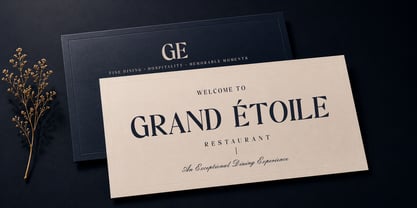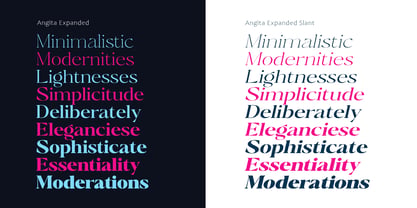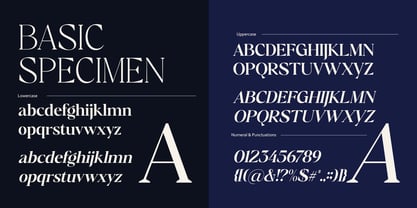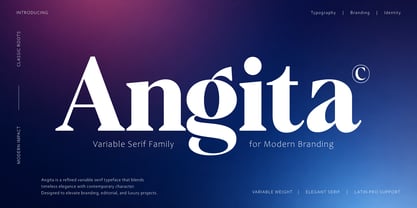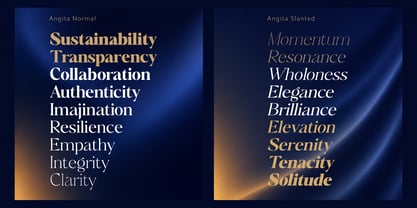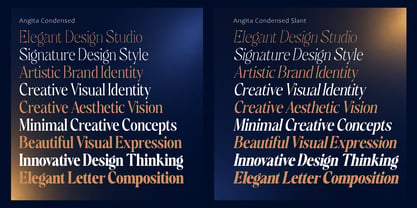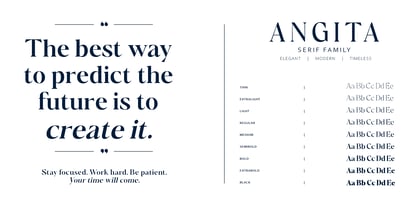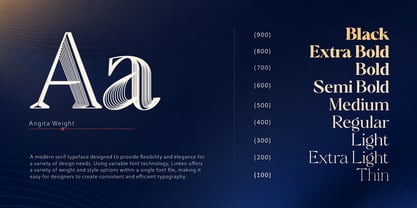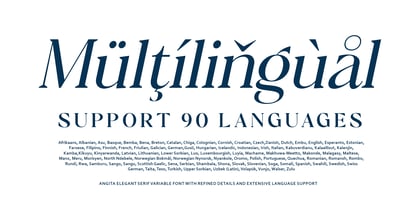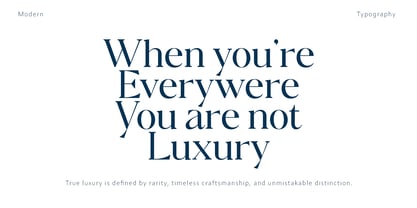
Angita
Die Schriftfamilie Angita entworfen und von Ulfa Foundry veröffentlicht. Angita enthält 91 Stile und Familienpaketoptionen. Mehr über diese Familie
Angita is a sophisticated variable serif typeface that embodies timeless elegance with a refined contemporary spirit. Its graceful proportions, sculpted curves, and confident contrast create a distinctive voice for premium branding, editorial layouts, luxury packaging, and high-end visual identities. Designed with versatility in mind, Angita transitions effortlessly from delicate refinement to bold expression, allowing designers to craft memorable typography with precision. Complete with extensive Latin Pro support and a flexible variable weight system, Angita delivers exceptional performance while preserving an unmistakable sense of classic beauty.